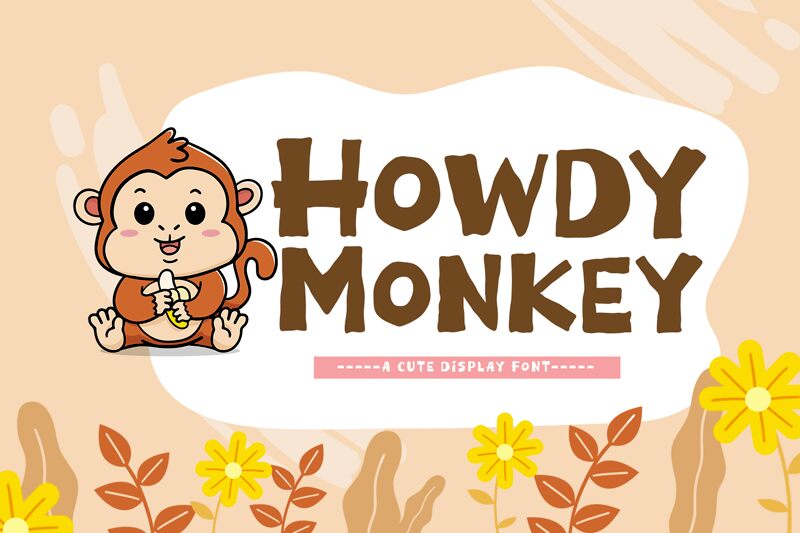
Howdy Monkey font family by Khurasan™ is a playful 2 font styles cartoon font family with a vibrant hand-drawn style. It’s casual, friendly, youthful, and informal, thus fulfilling any fun, artistic, and creative design inspirations and needs. This font family combines the playful appearance of displayed characters to form cheerful legible texts that are approachable. Friendly and readable make this resource quite useful if not essential.
Through interface apps, web pages, and games, as well as for branding projects and marketing campaigns, the font can serve an infinite number of users in various ways. Specifically, posters, book covers, invitations, greeting cards, packaging designs, and so on. Animate the characters and realize what else can be achieved with this typeface.